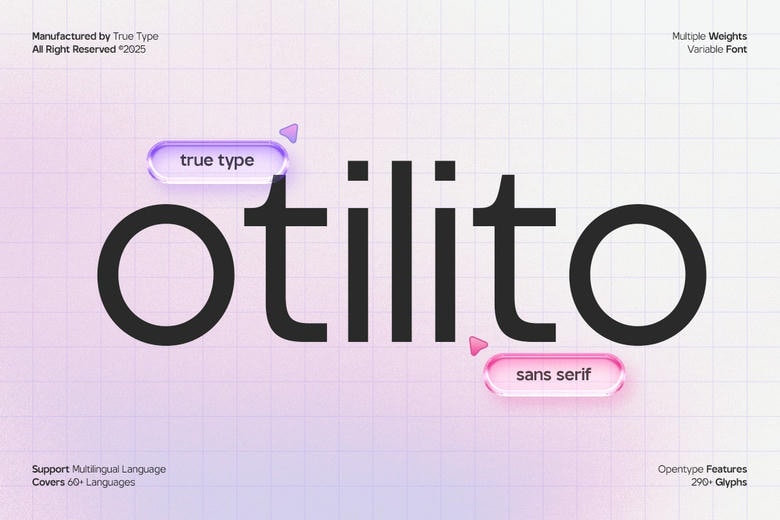
TRT Otilito Font
TRT Otilito is a modern sans serif typeface with semi-grotesque characteristics and a unique personality. It’s a clean and functional typeface, but also unique, with a geometric structure and slight irregularities that add personality and versatility.
It’s a versatile font family with a range of weights and styles that can be used for a variety of design applications including branding, editorial, interfaces and packaging.
Ideal for branding, headlines, logos, magazines and interfaces, TRT Otilito is clear and distinctive. It’s a reliable tool for designers seeking modern aesthetics with a touch of originality. At True Type, we create fonts that are authentic, useful and communicative designed to help you communicate with confidence.
TRT Otilito Sans Serif Font